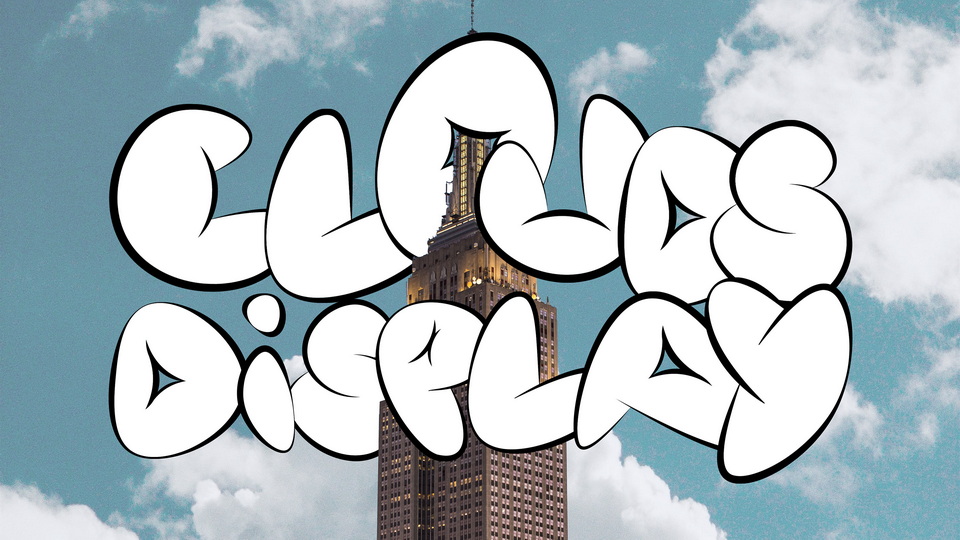
Clouds Display Font › Fontesk – Fonte Grátis
Download Cloud Display font, a fun and cool typeface with fluffy and airy look. Cloud Display is perfect for branding, products, merchandise, crafting, logos, editorial and more.